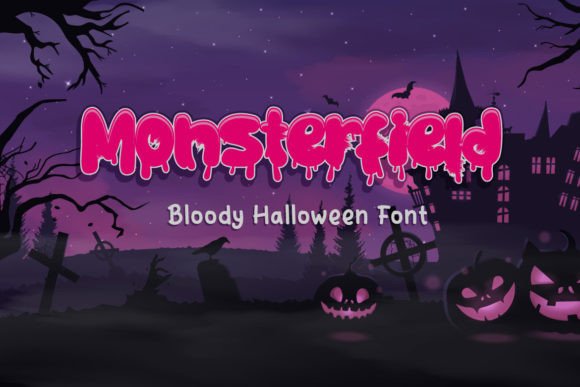
Unleash the thrilling spirit of Halloween with Monsterfield Font, a display font that captures the essence of spooky fun and horror. Created by Mightyfire, this font is a captivating blend of playfulness and spine-tingling charm, perfect for conjuring up unforgettable Halloween or horror-themed designs.
Embark on a spine-chilling adventure with Monsterfield Font, where every letter drips with eerie elegance and mischievous delight. This font is an artist's playground, offering endless possibilities for creating hauntingly beautiful designs that will send shivers down your spine. Whether you're crafting posters, invitations, flyers, or any Halloween-inspired creations, Monsterfield Font will transform your projects into chilling masterpieces.
Immerse yourself in the spooky allure of Monsterfield Font, a display font that will elevate your designs to new heights of horror. Its unique and captivating characters will add a touch of spine-tingling delight to your Halloween or horror-themed projects. Unleash your creativity and explore the endless possibilities that await you with Monsterfield Font.